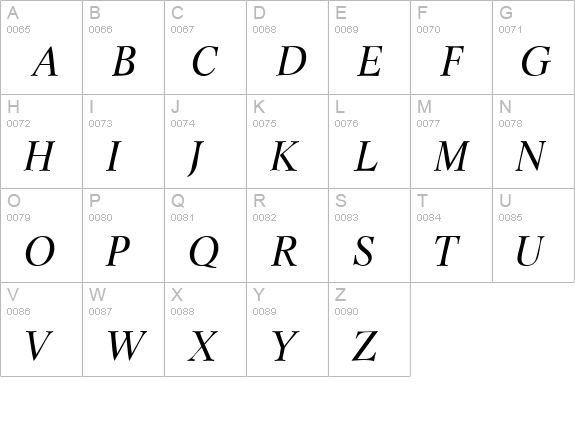
ResourceSSK Italic Font Details
ResourceSSK Italic is a distinctive, italic variant in the ResourceSSK typeface family \xE2\x80\x94 well suited to design and typography projects.
ResourceSSK Italic is a stunning and versatile font that effortlessly combines elegance with a touch of modernity. With its slanted and stylish design, this typeface exudes a sense of sophistication and creativity, making it perfect for a wide range of projects. Whether you're designing a logo, creating a beautiful invitation, or crafting eye-catching headlines, ResourceSSK Italic will add a unique and captivating flair to your work. Its sleek and curvaceous letterforms create a visually pleasing flow, capturing attention and leaving a lasting impression. One of the greatest features of ResourceSSK Italic is that it is available for free download at FontsMarket.com. This means that you can easily access and enjoy this exceptional font without any cost. With just a few clicks, you can elevate your designs and bring them to life with the help of this high-quality typeface. Furthermore, ResourceSSK Italic is incredibly versatile, allowing you to experiment with different styles and create a wide range of visual experiences. Whether you want to convey elegance, playfulness, or professionalism, this font can adapt to your needs and deliver outstanding results. The attention to detail in ResourceSSK Italic is truly remarkable. Each letter is meticulously crafted, ensuring a seamless and harmonious overall look. The delicate curves, precise angles, and refined strokes all contribute to the overall beauty and elegance of this font. So, if you're looking for a font that combines elegance, versatility, and affordability, look no further than ResourceSSK Italic. Download it for free at FontsMarket.com and unlock a world of design possibilities. Elevate your projects with this captivating typeface and make a lasting impression on your audience.